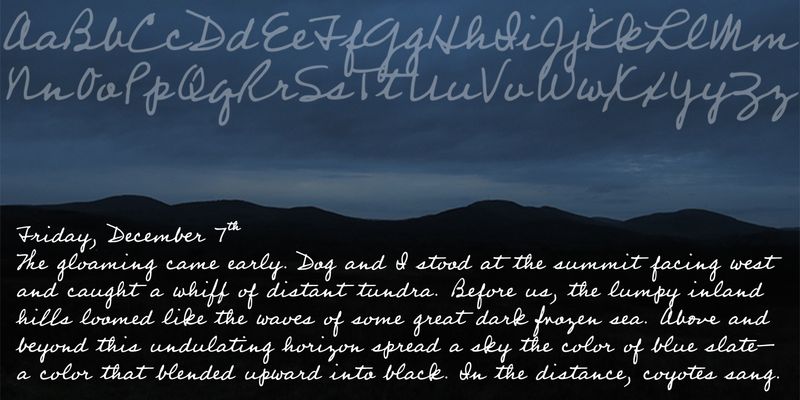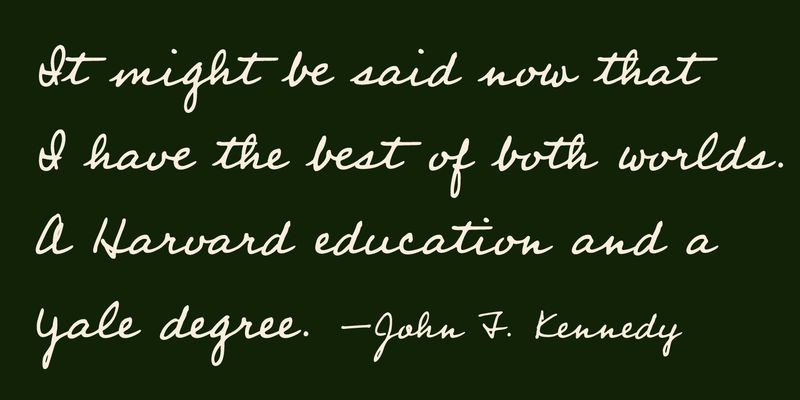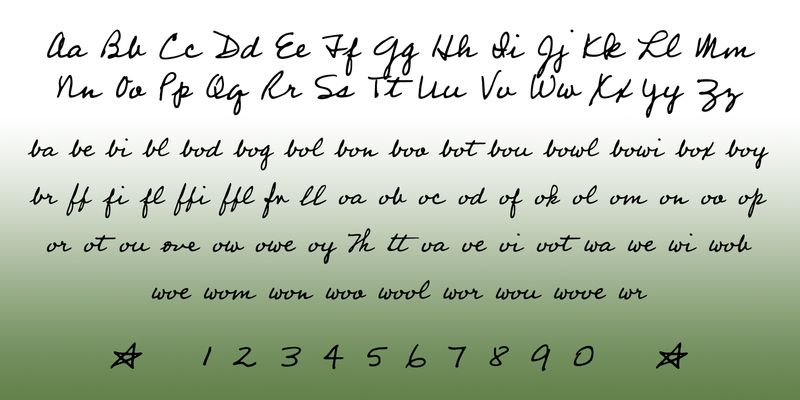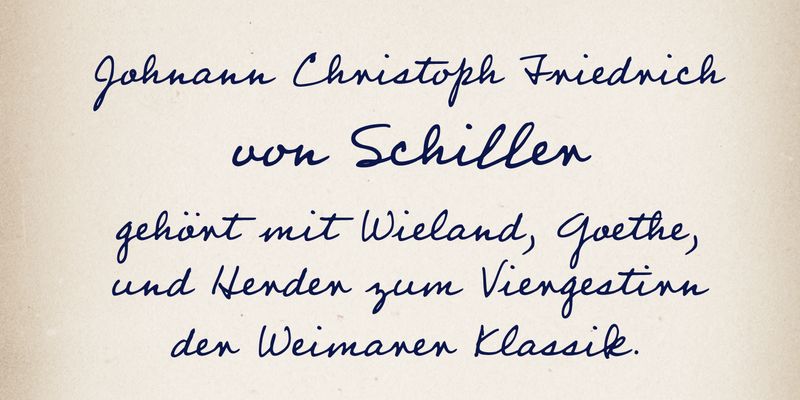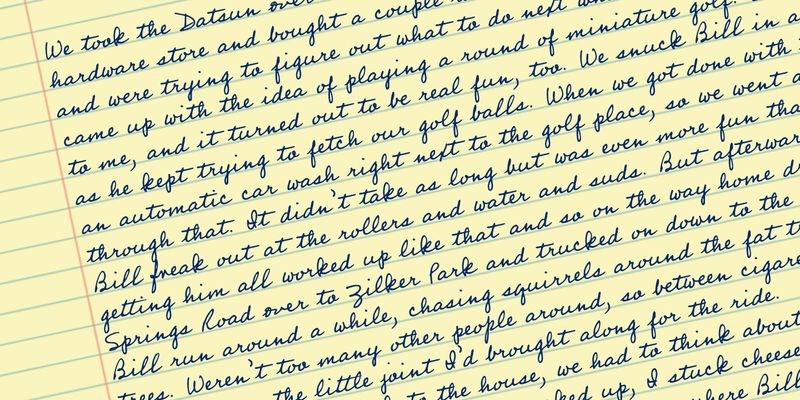
Professor™ simulates the kind of accessible, legible mid–20th century cursive that used to be taught in school. Casual, personable, and hard to tell apart from the real thing. Has full Latin support.